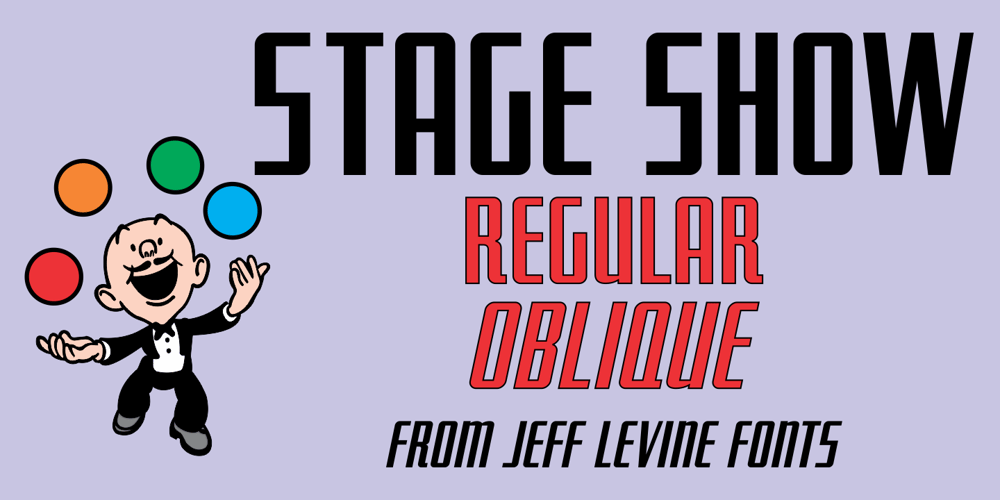
Stage Show JNL Font Family was designed by Jeff Levine and published by Jeff Levine. Stage Show JNL contains 2 styles and family package options. “9 Garcons…Un Cœur” (“9 Boys…One Heart”) is a 1948 French musical starring Edith Piaf. The hand lettered credits for the film are done in a condensed Art Deco sans alphabet, now available digitally as Stage Show JNL in both regular and oblique versions.